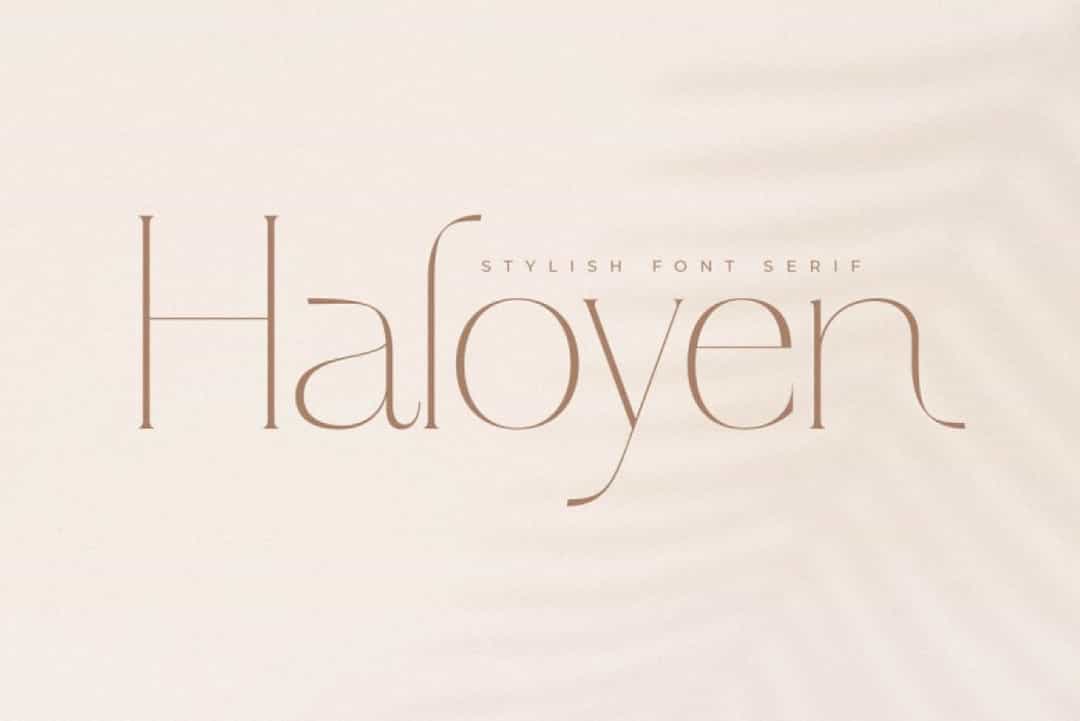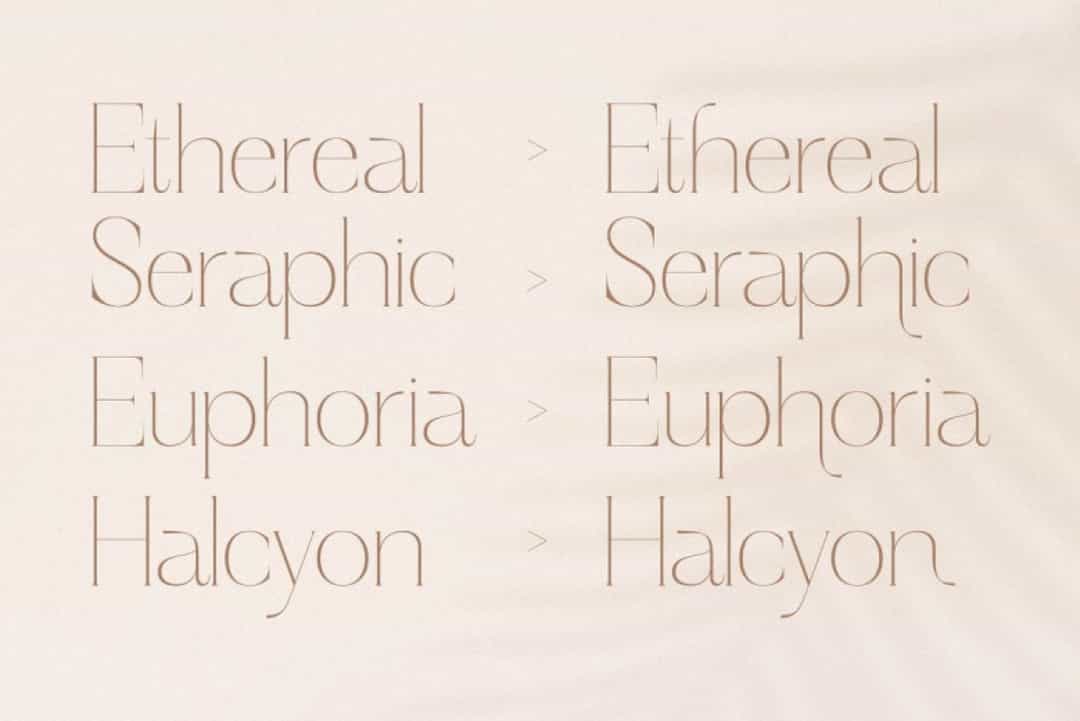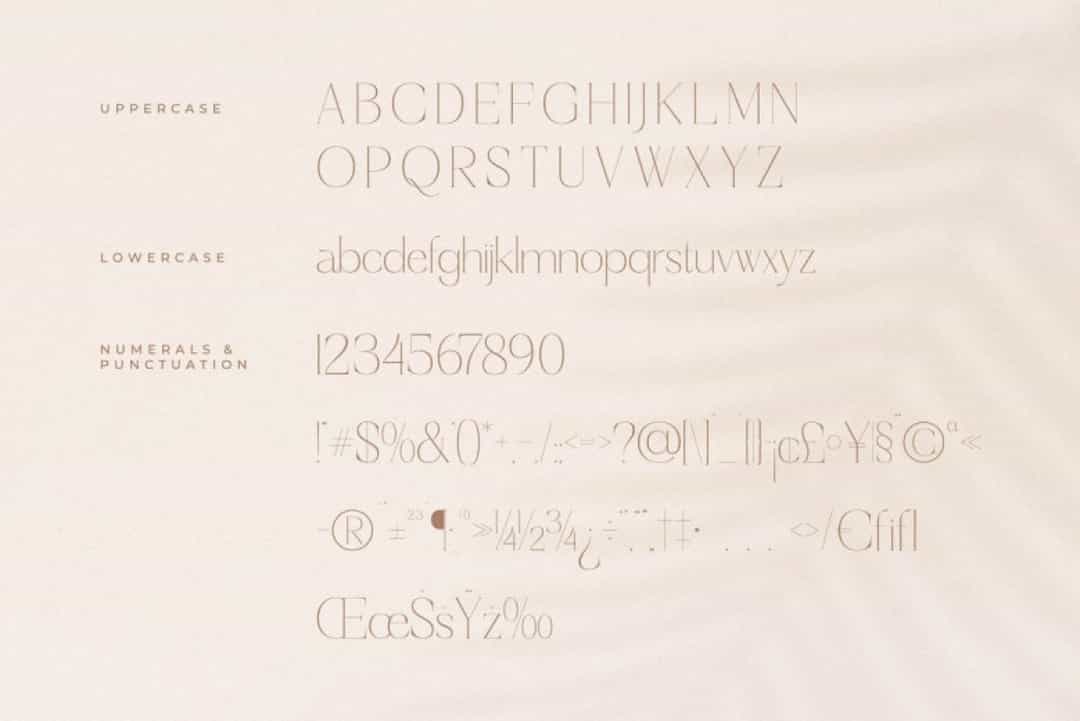
Haloyen Font, designed by Storytype, is an elegant serif typeface with its own distinct style and modern appeal, making it suitable for use as logos, movie titles, book covers, clothing lines, magazine letters, quotes and much more.